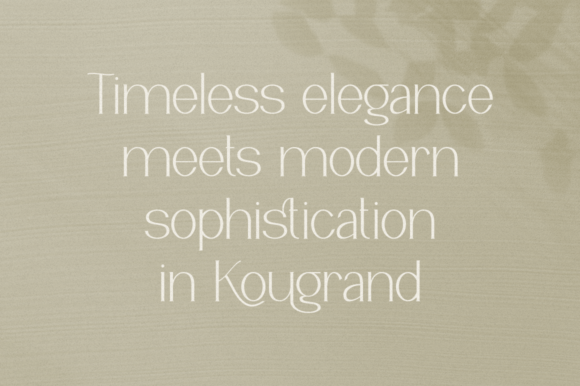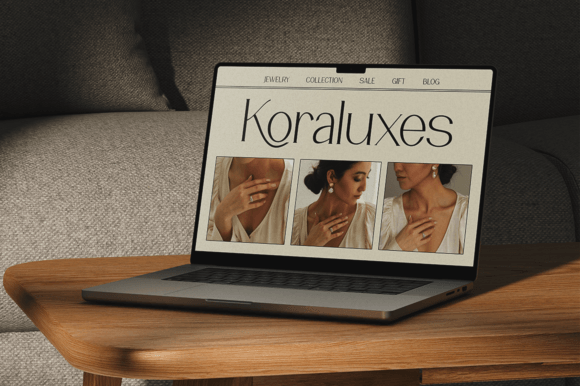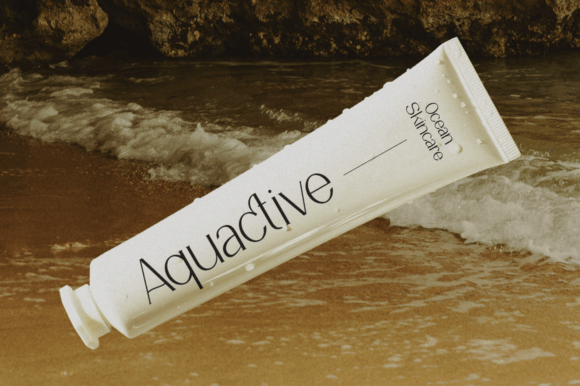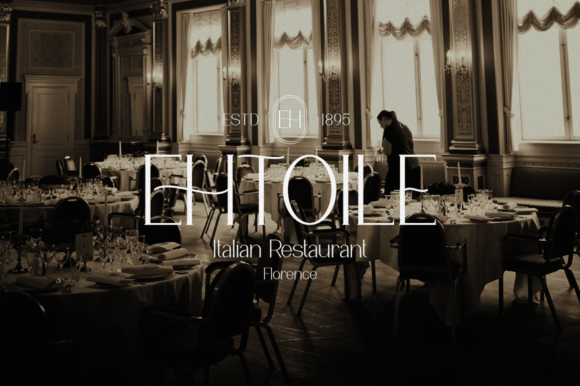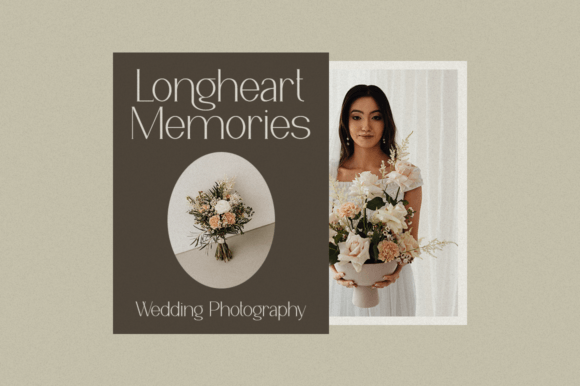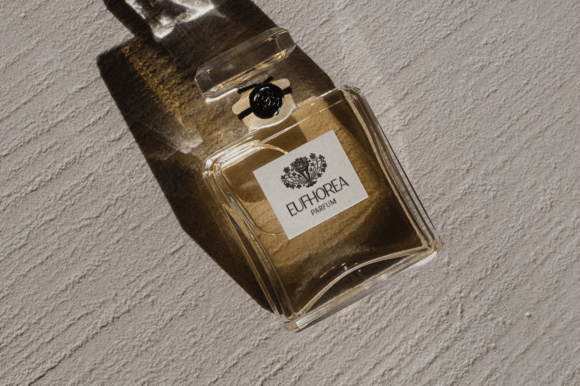
Introduction to Kougrand Font
Kougrand is an elegant, classic serif font characterized by its timeless and refined design.
It features high contrast between thick and thin strokes, giving it a sophisticated and luxurious appearance The fontโ€™s letterforms are meticulously crafted, with smooth curves, sharp serifs, and graceful proportions that make it ideal for high-end branding, editorial design, and elegant print materials.
Key Features of Kougrand Font
Why Choose Kougrand Font?